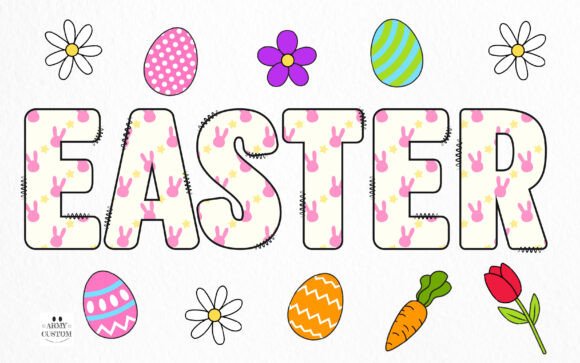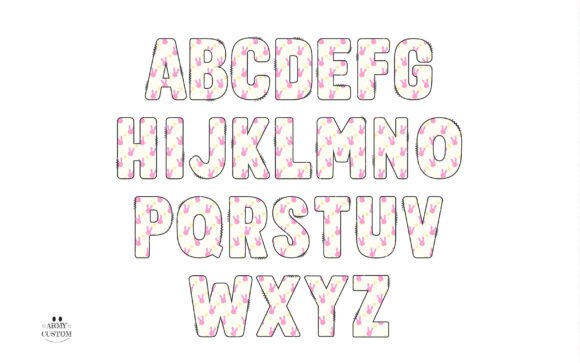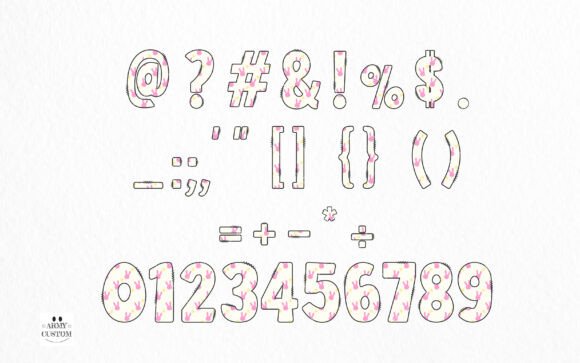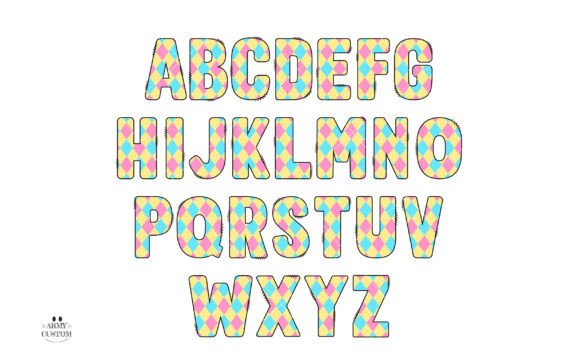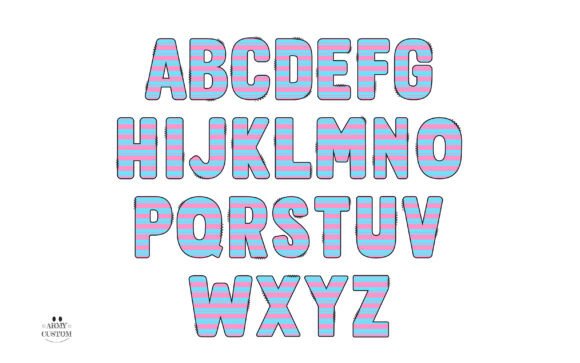
Easter Bundle Font: Bringing Springtime Joy to Your Designs
As the world awakens from its winter slumber, the spirit of Easter brings with it a vibrant and lively atmosphere, full of color and creativity. For designers and crafters, this season offers endless inspiration for new projects, and the “Easter Font Bundle No.17” is here to help you tap into that creative energy. This delightful font bundle embodies the rhythmic charm and joyful exhilaration of Spring, reminiscent of Easter celebrations, making it the perfect addition to your design toolkit.
Unleash Your Creativity with Easter Font
The “Easter Font” is more than just a font – it’s an artistic tool that effortlessly transcribes your ideas into delightful visual narratives. With its lively and vibrant aesthetic, this font infuses your designs with the thrilling ecstasy of Easter in every stroke. Whether you’re creating greeting cards, party invitations, or social media graphics, the Easter Font Bundle No.17 is designed to bring a touch of Springtime joy to your work.
Key Features of Easter Font Bundle
• Vibrant and Lively Aesthetic: The Easter Font Bundle No.17 boasts a unique and eye-catching design that captures the essence of Easter and Spring.
Design Ideas with Easter Font Bundle
The Easter Font Bundle No.17 offers endless creative possibilities for designers and crafters. Here are a few ideas to get you started:
• Easter Greeting Cards: Create personalized Easter greeting cards with the Easter Font Bundle No.17.
• Party Invitations: Design vibrant and lively party invitations that capture the spirit of Easter.
• Social Media Graphics: Use the Easter Font Bundle No.17 to create engaging social media graphics that showcase your creativity.
• DIY Crafts: Cut out letters and shapes with your cutting machine to create custom DIY crafts, such as Easter decorations and gift tags.
The Easter Font Bundle No.17 is an excellent addition to any design toolkit, offering a unique and vibrant aesthetic that’s perfect for Springtime projects. With its wide compatibility, technical versatility, and endless creative possibilities, this font bundle is sure to bring joy and inspiration to designers and crafters alike. So why wait? Immerse yourself in the spirited artistic vision embodied in the Easter Font Bundle No.17 and bring a touch of Springtime joy to your designs.